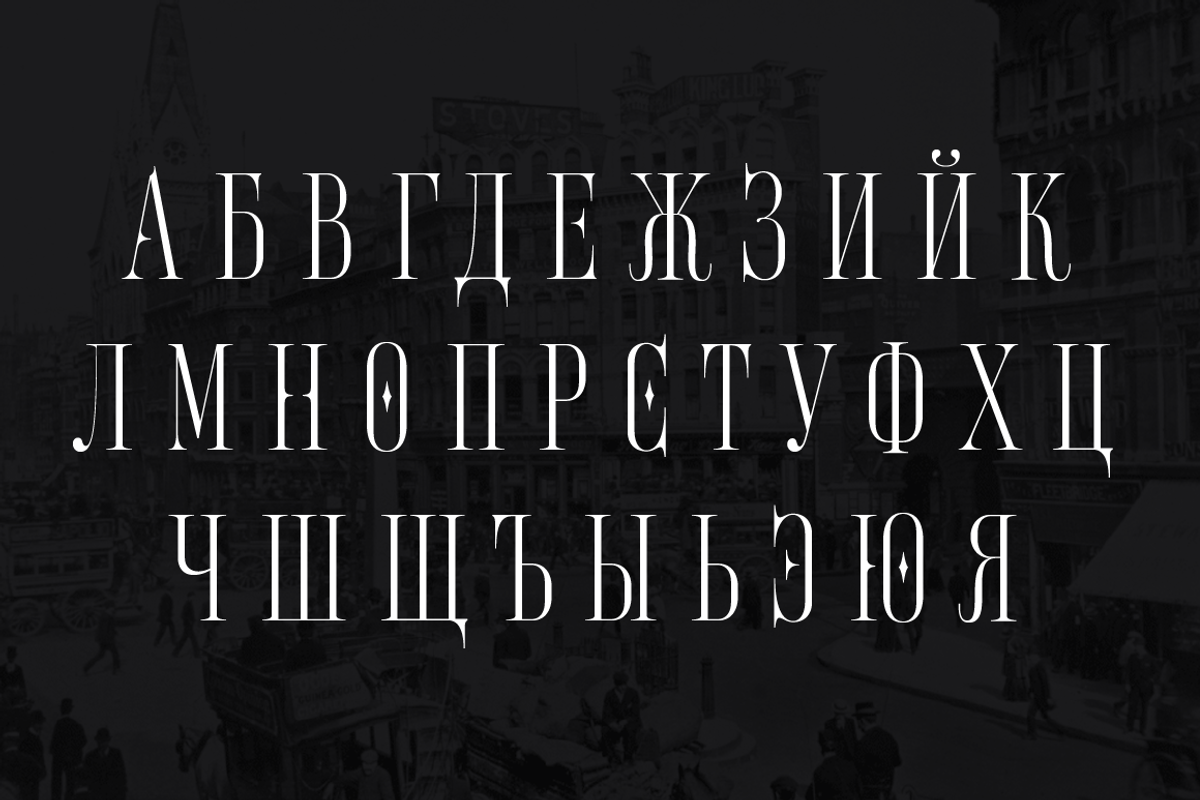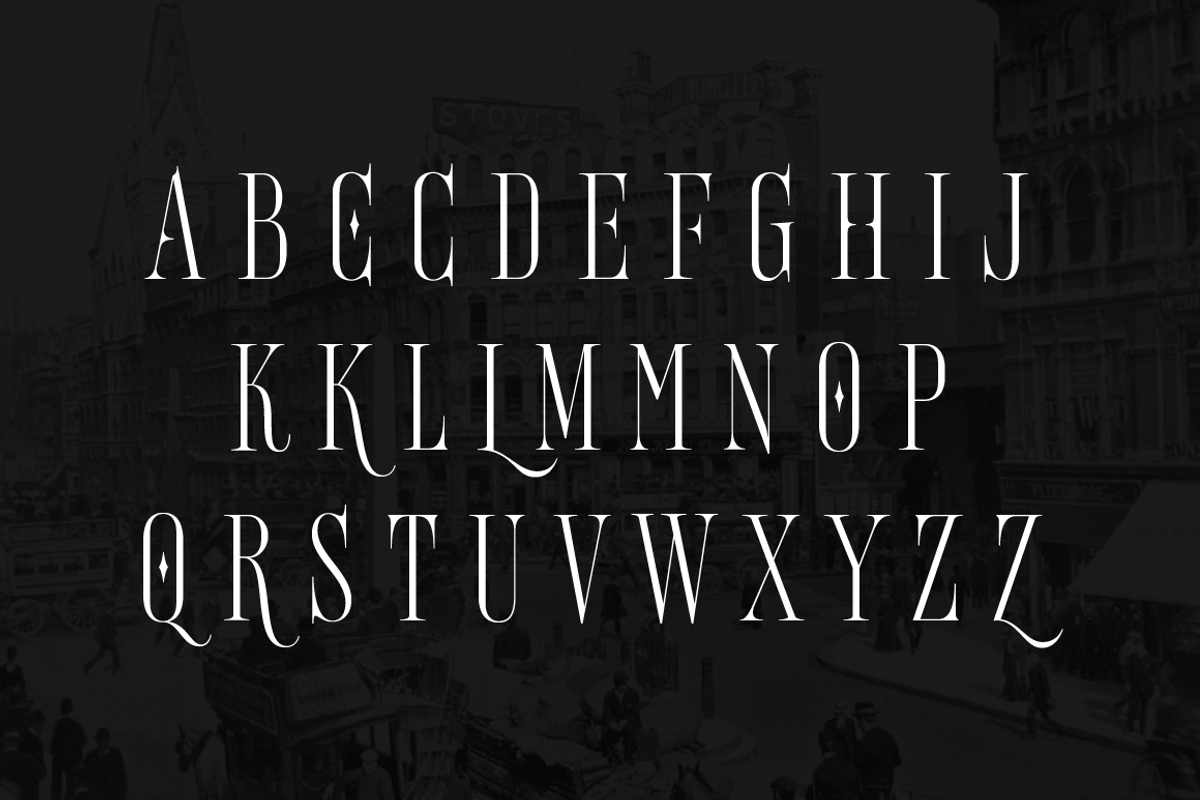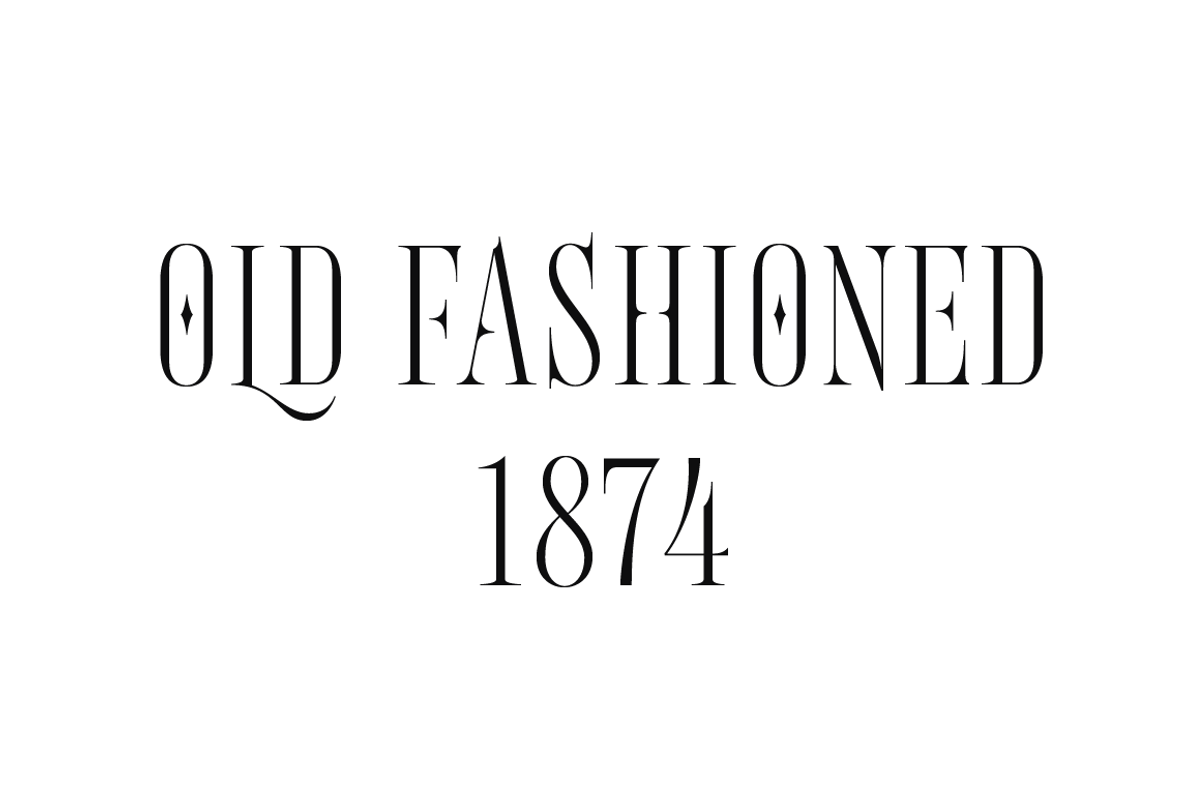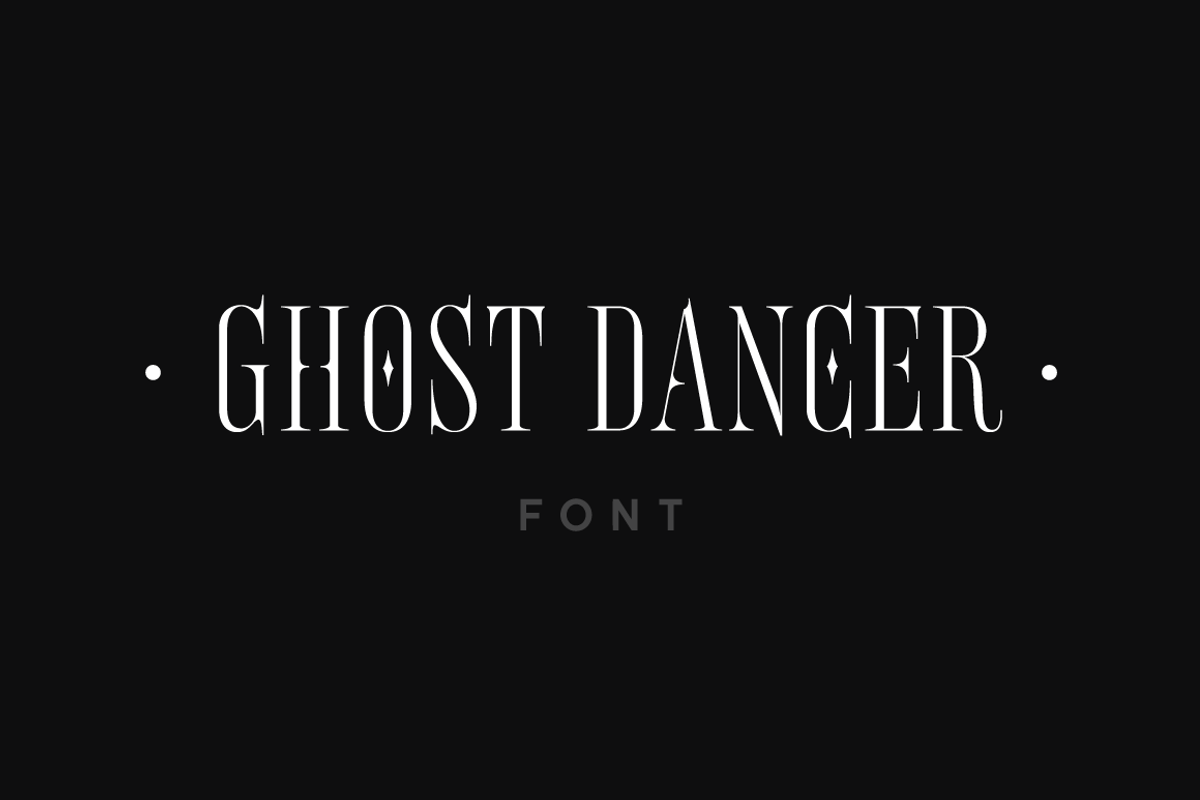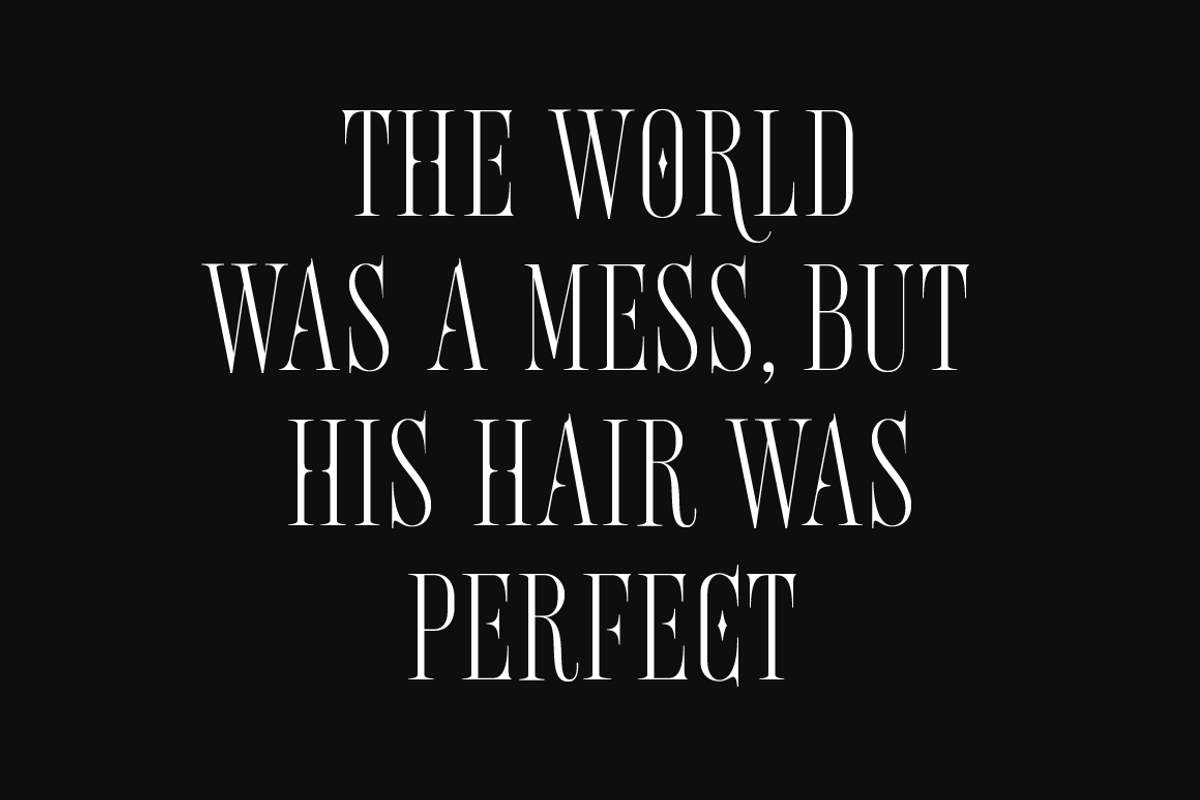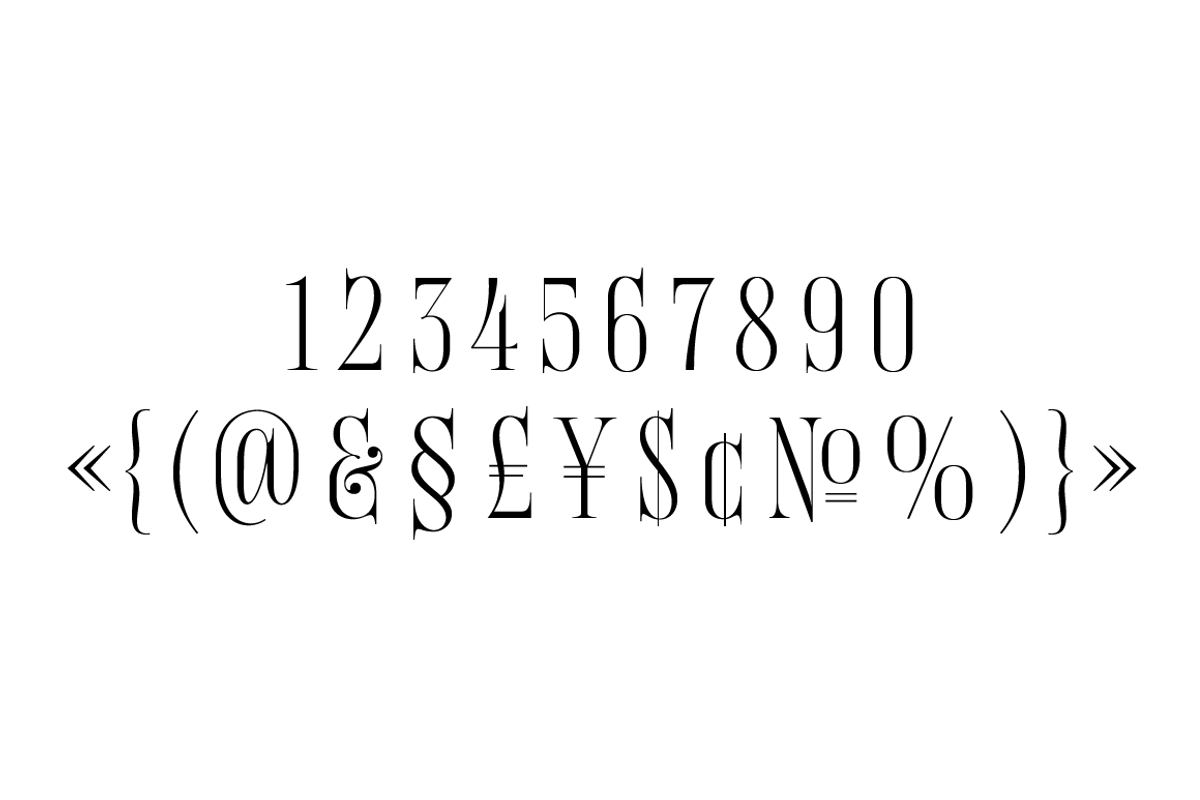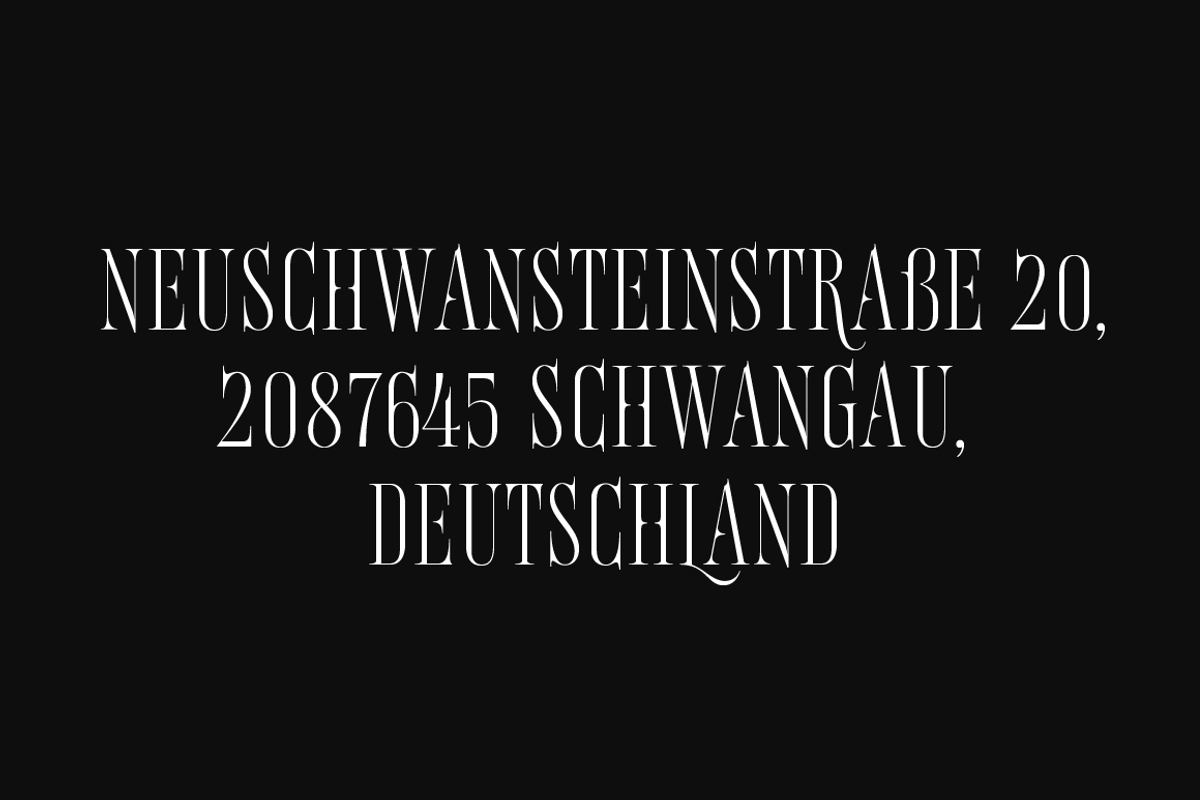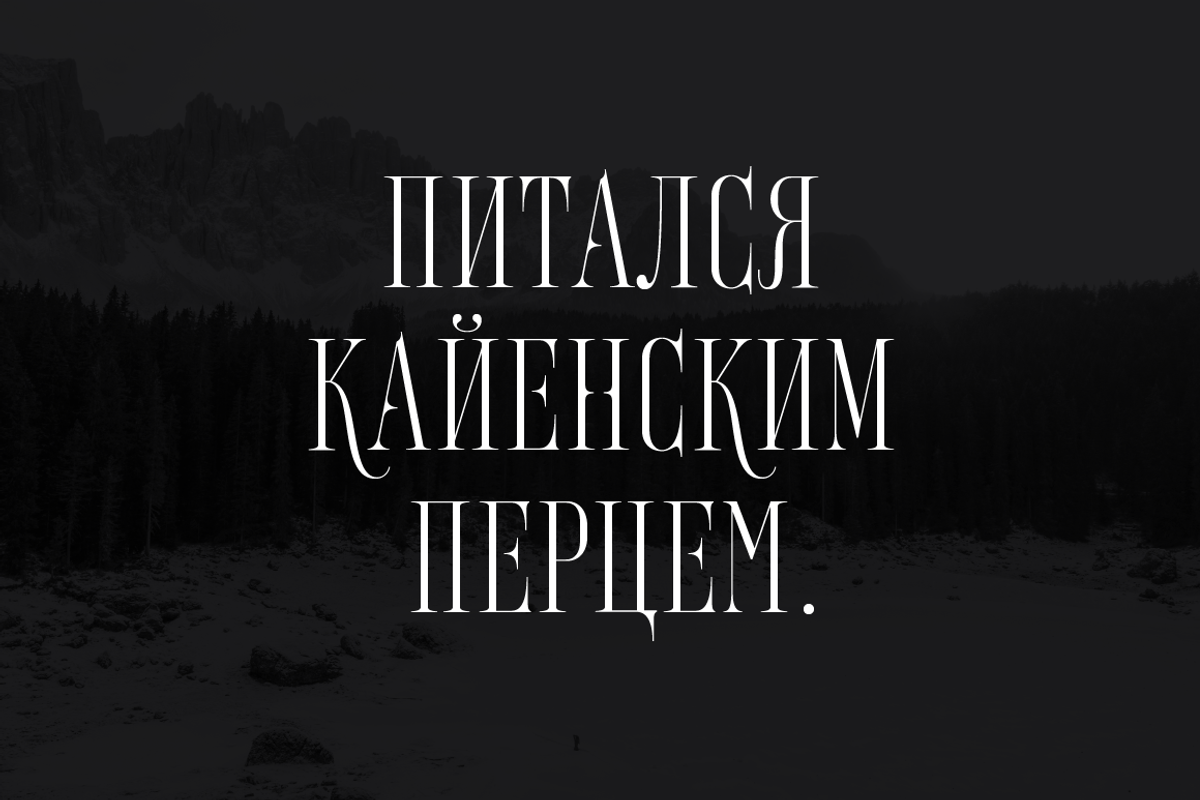
Ghost Dancer
Ghost Dancer is an elegant all-caps display font with old-fashioned flavour. It is a perfect font for headlines, magazine titles, posters, short texts or branding.